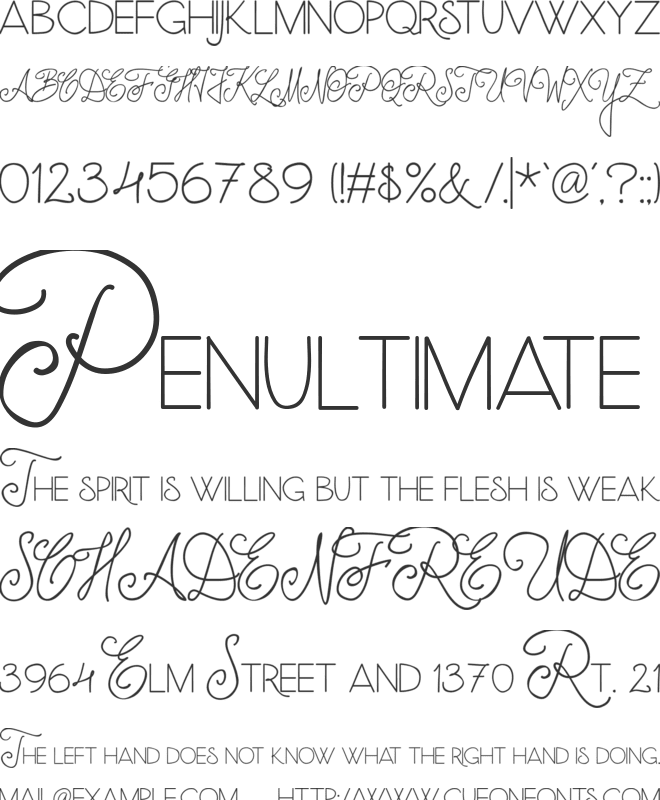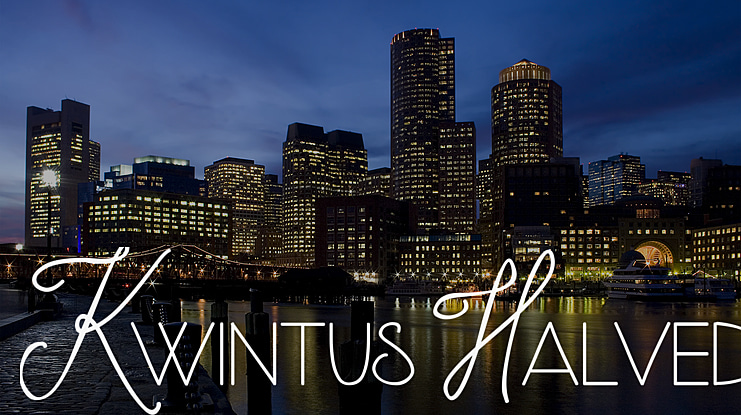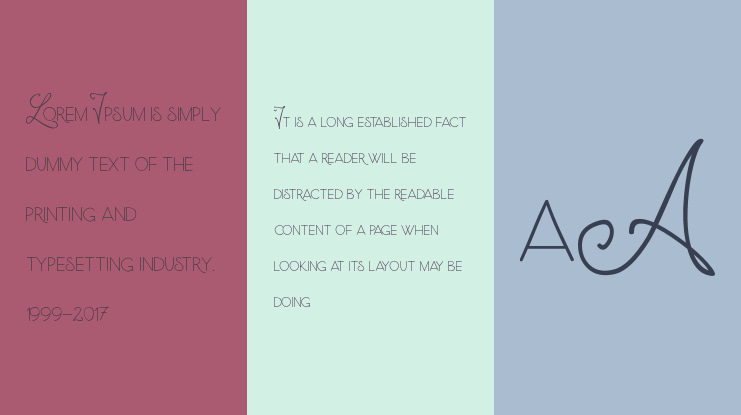
Kwintus Halved Font
Kwintus Halved. A daring, two-faced, handwritten font that brings together elegant capital letters and small capitals with a retro feel as lowercase glyphs. The possibilities, unlimited. The choice, yours.